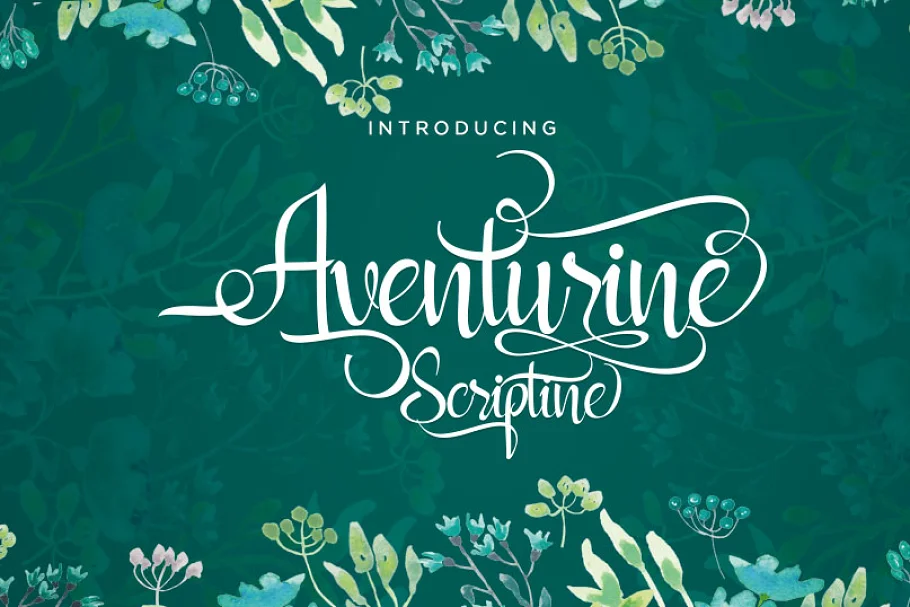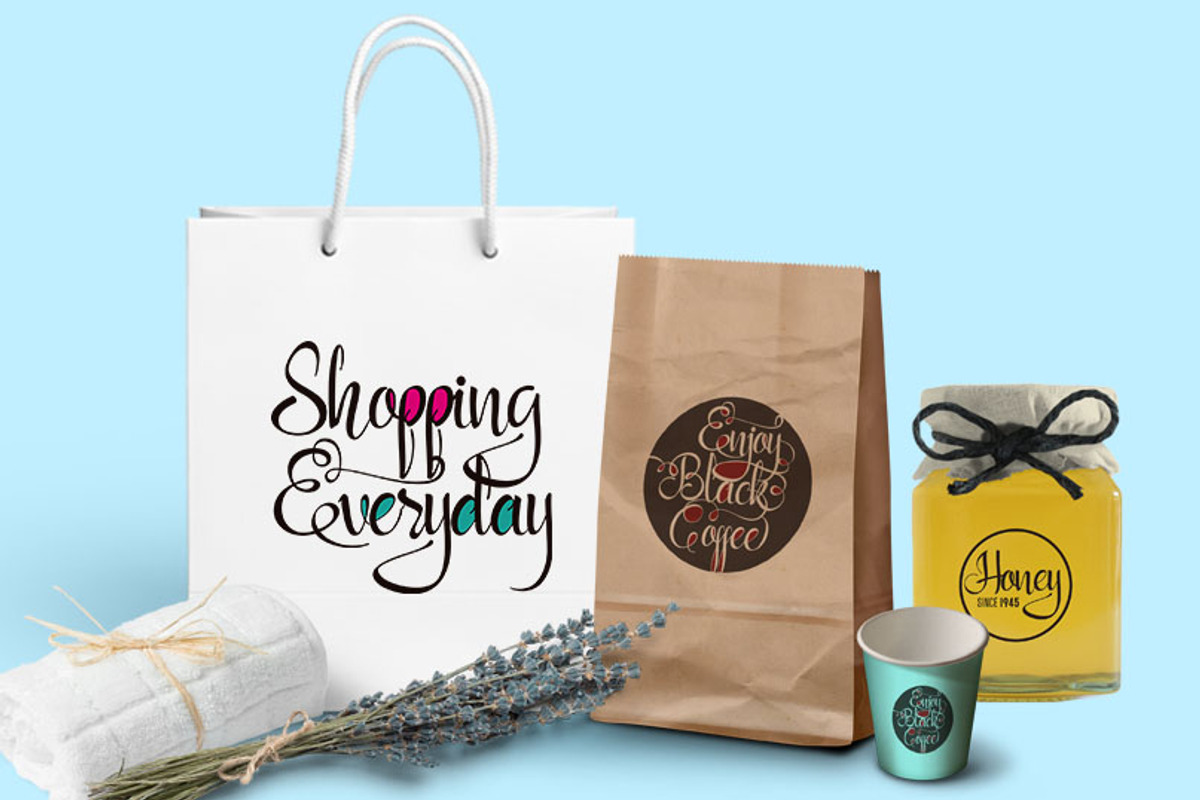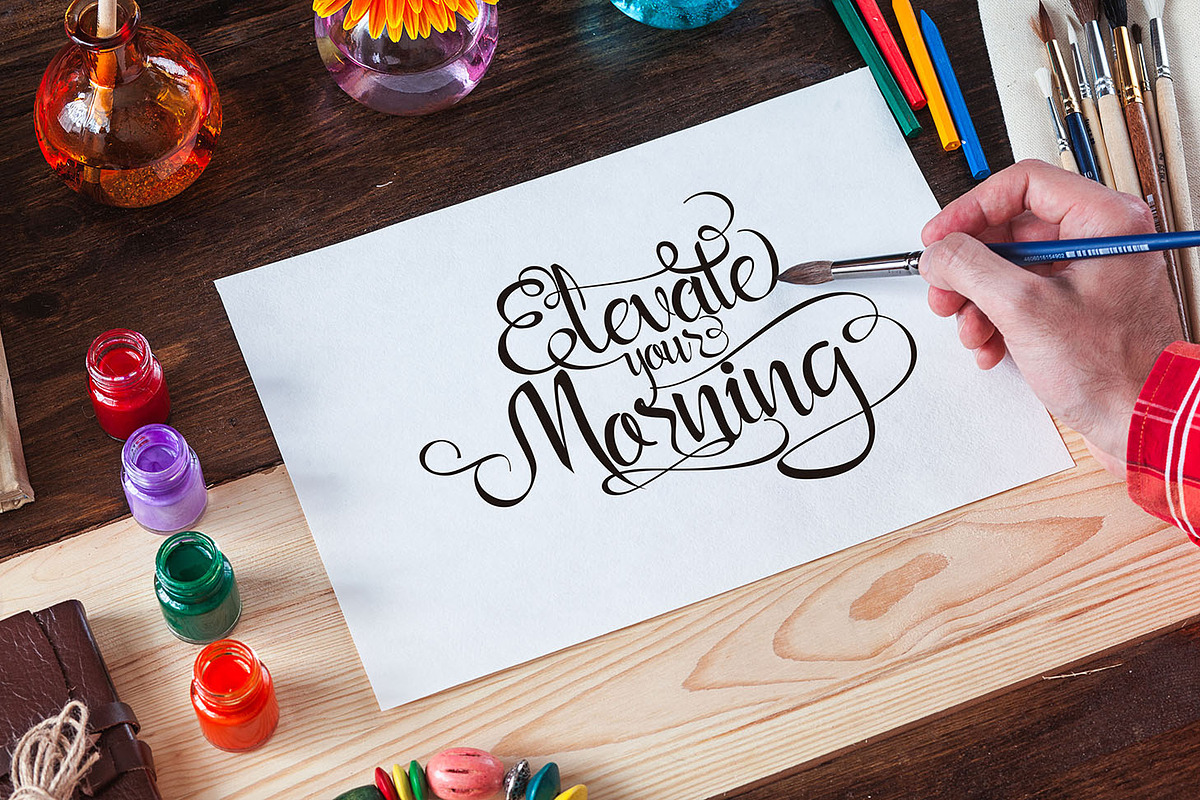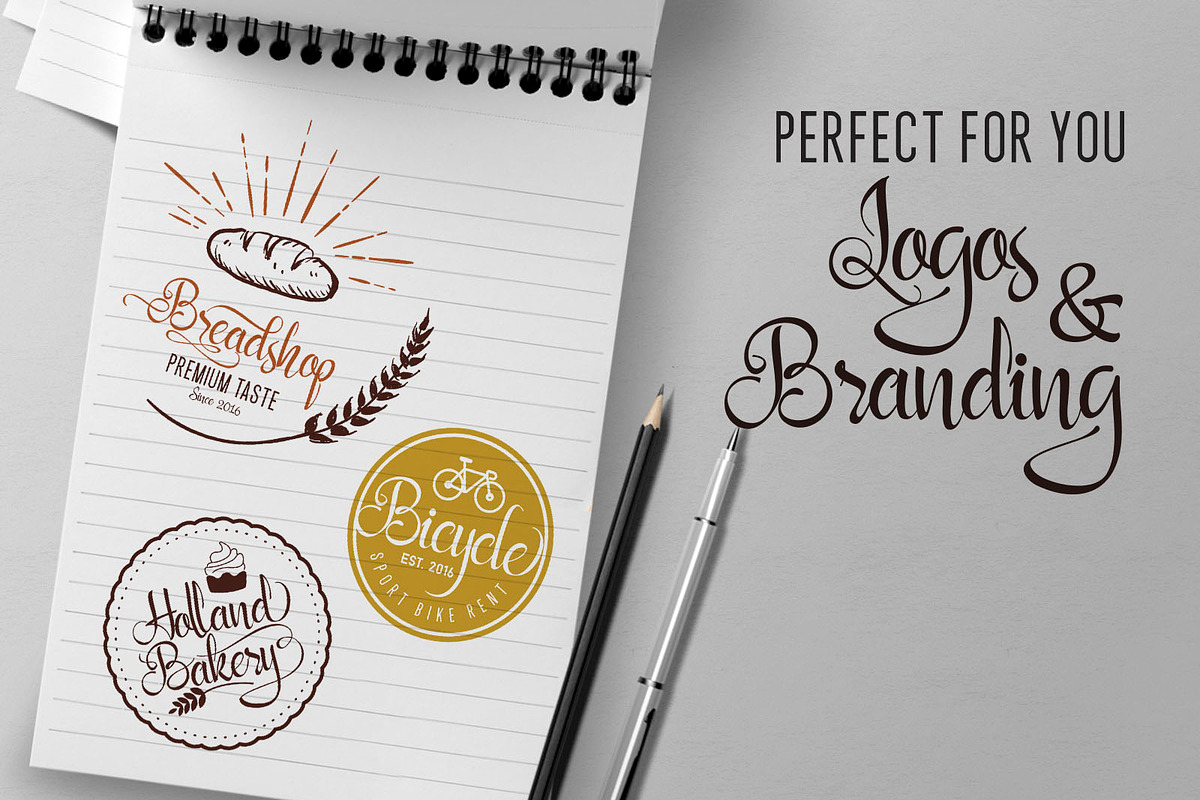
Aventurine Script Font
Aventurine Script is a modern calligraphy font with a handmade style and decorative characters. It has a dancing baseline and is perfect for creating eye-catching designs for invitations, branding, business cards, quotes, posters, and more.